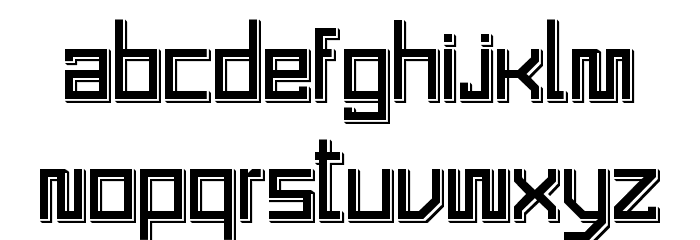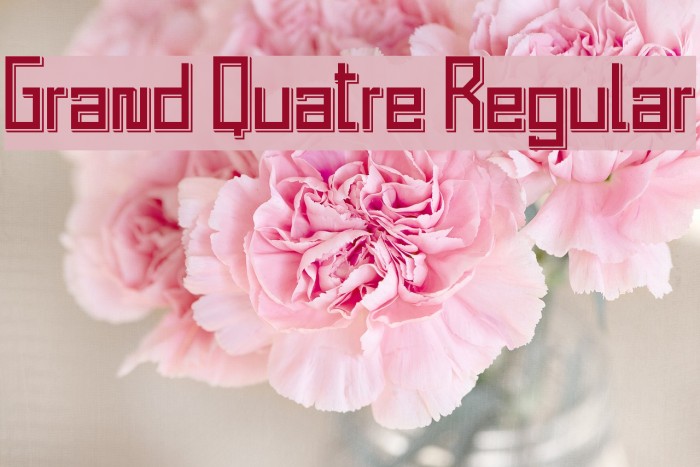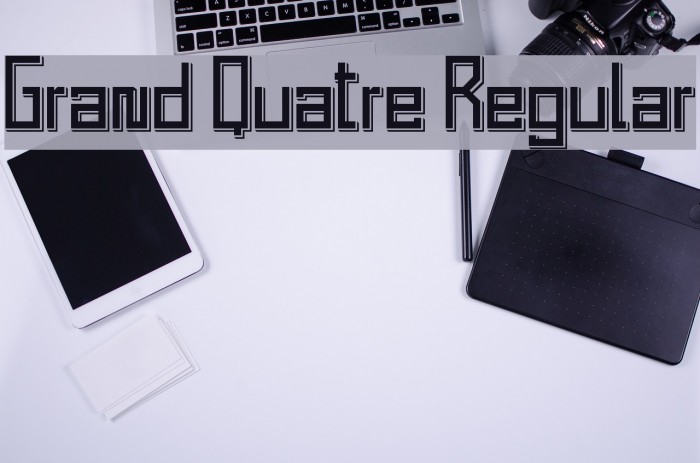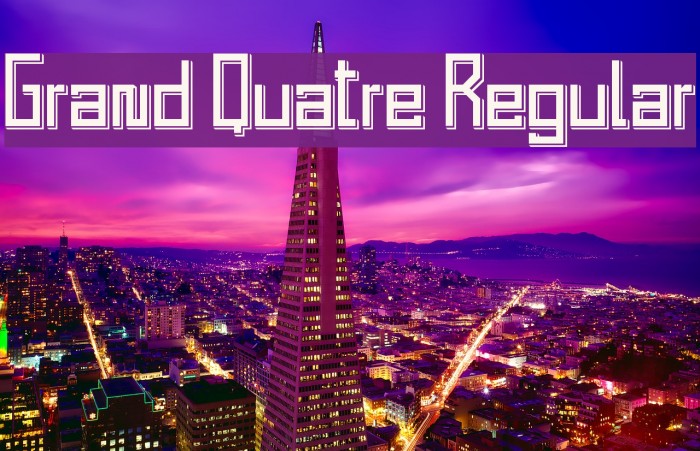
Grand Quatre Regular Font
This font features a bold, geometric design with a modern and futuristic aesthetic. The characters are constructed with a double-line structure, creating a unique and eye-catching appearance. The uppercase and lowercase letters maintain a consistent style, with sharp angles and a blocky form. The numerals and special characters follow the same design principles, ensuring a cohesive look across all glyphs. The font's structure is both decorative and functional, making it suitable for various creative applications. Its distinct style is perfect for projects that require a strong visual impact.
A bold, geometric font with a modern, futuristic design.
- Proposed Projects: Ideal for branding, poster design, album covers, and digital artwork.